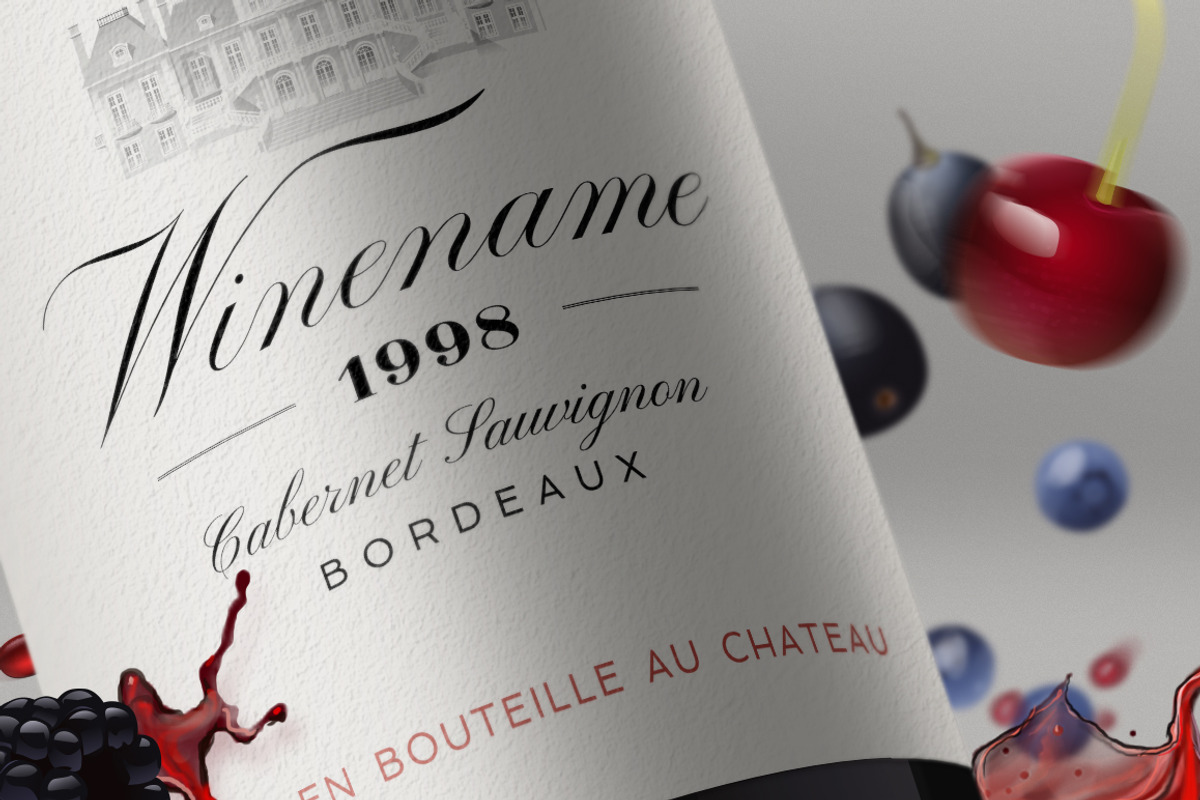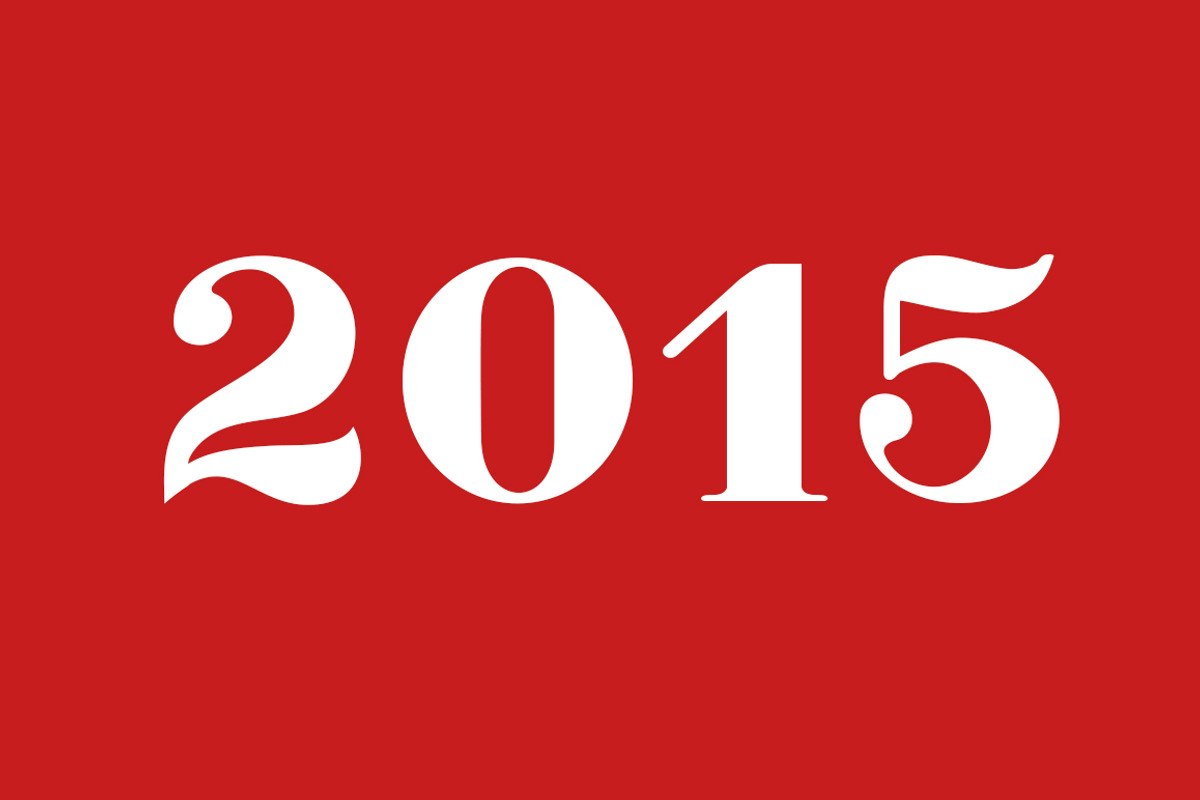
BoldPrice - numbers & currency
Open Type font that consists only of numbers, period and common currency symbols. The regular weight is just simple black shapes, while the bold version feels like woodcut engraving. See the preview sample 100% size to see all of the details. Numbers with the character for your lettering works, restaurant menus, logos etc.